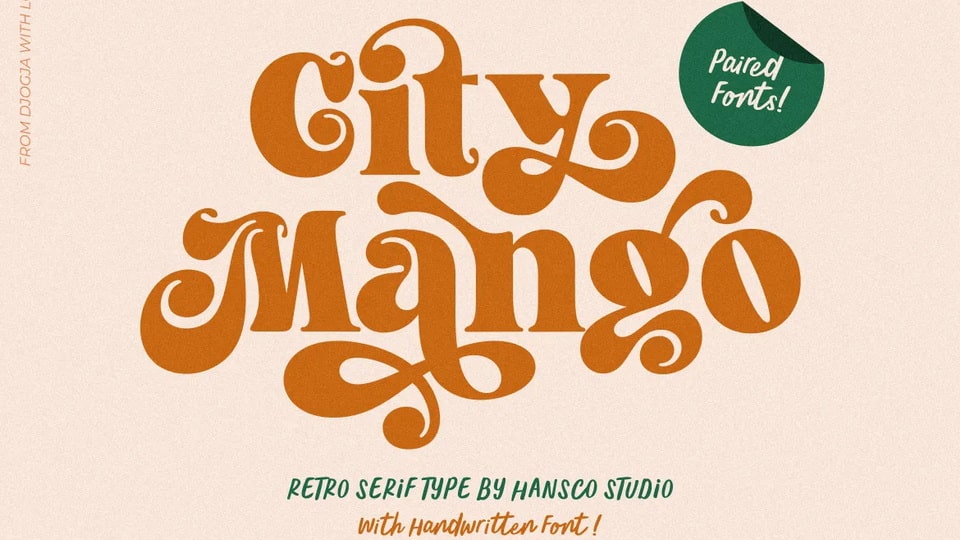
Download City Mango font, a decorative display typeface with a retro vibe. It feels playfully nostalgic and delivers an incredible vintage aesthetic.